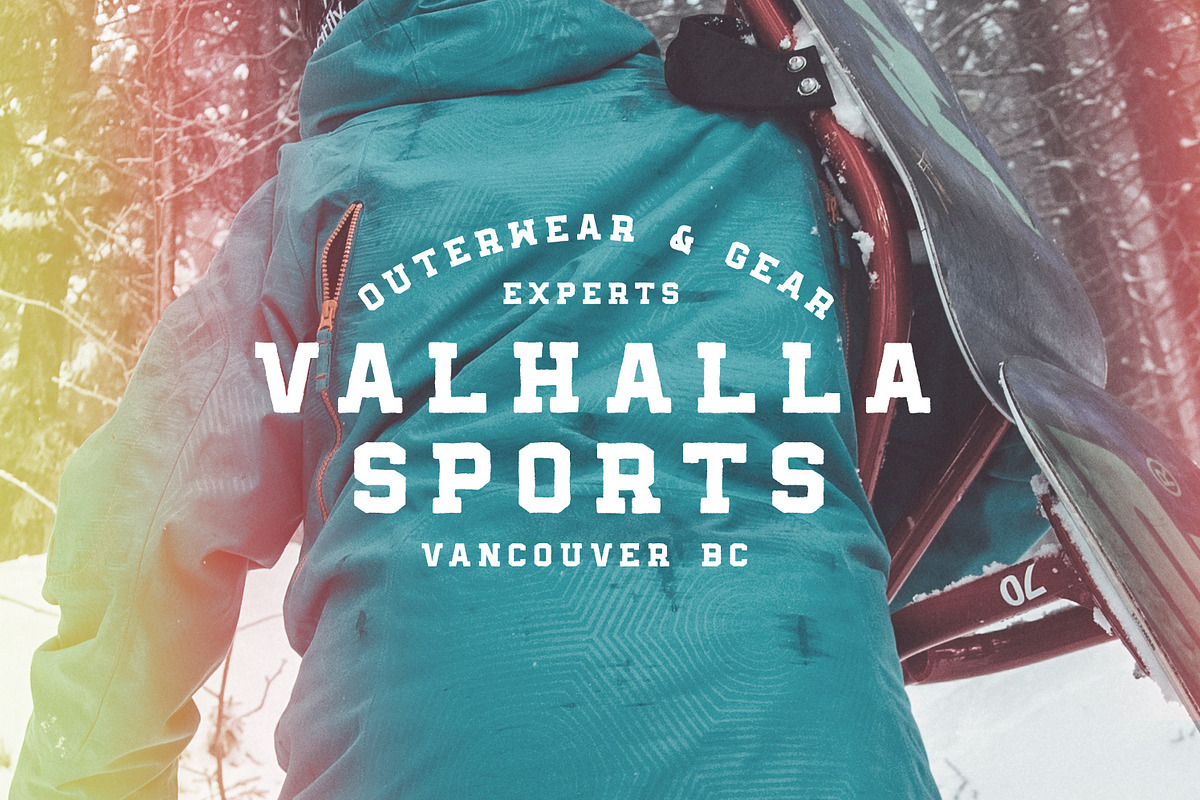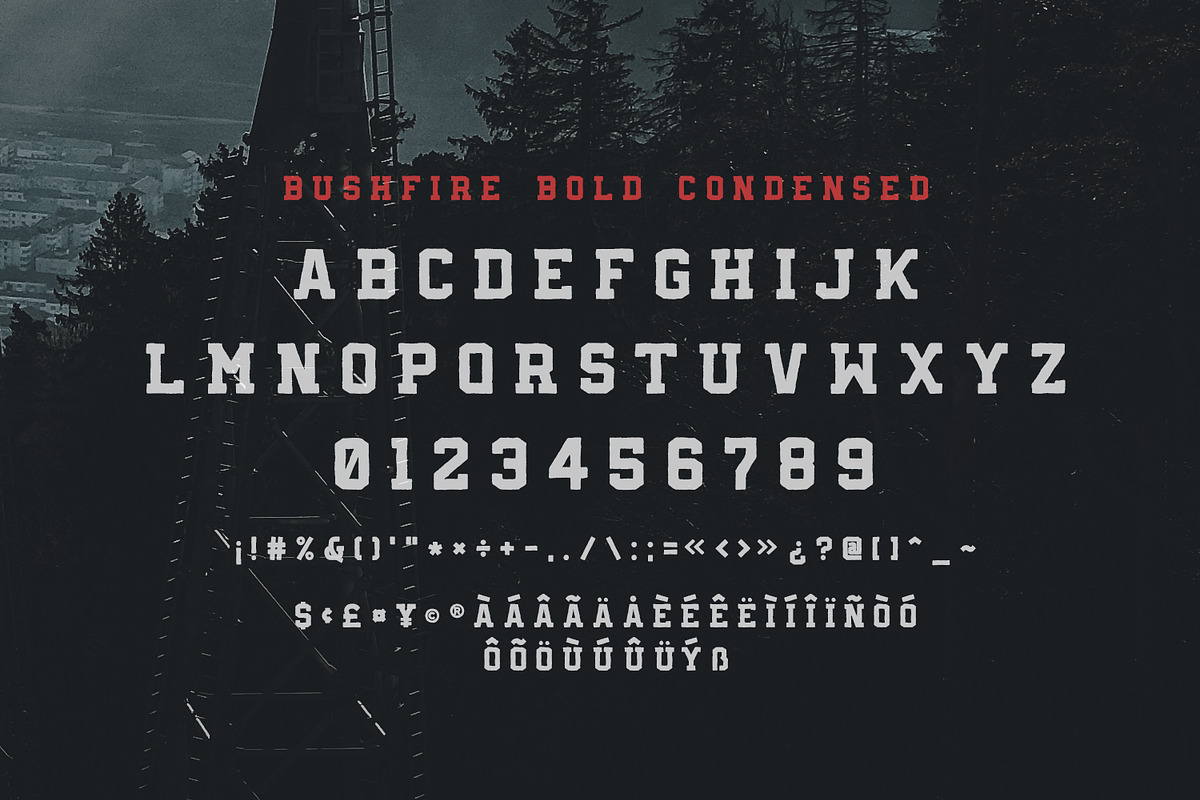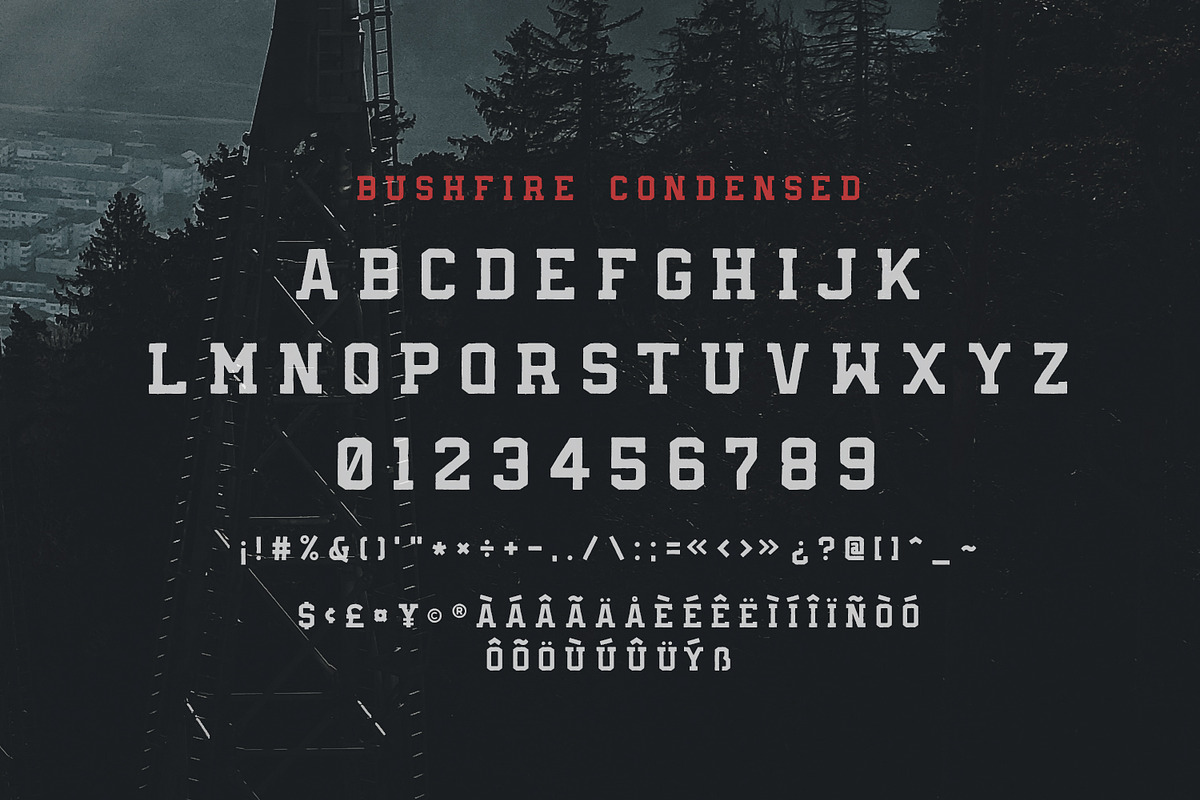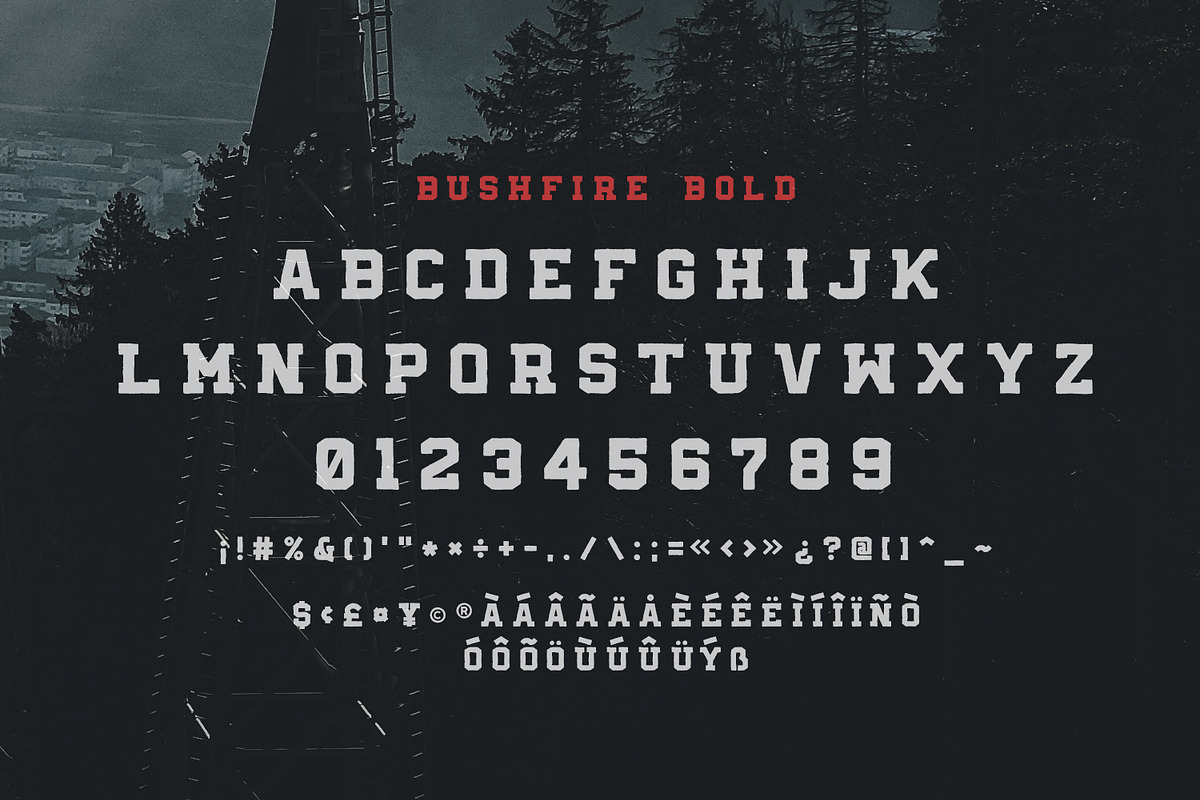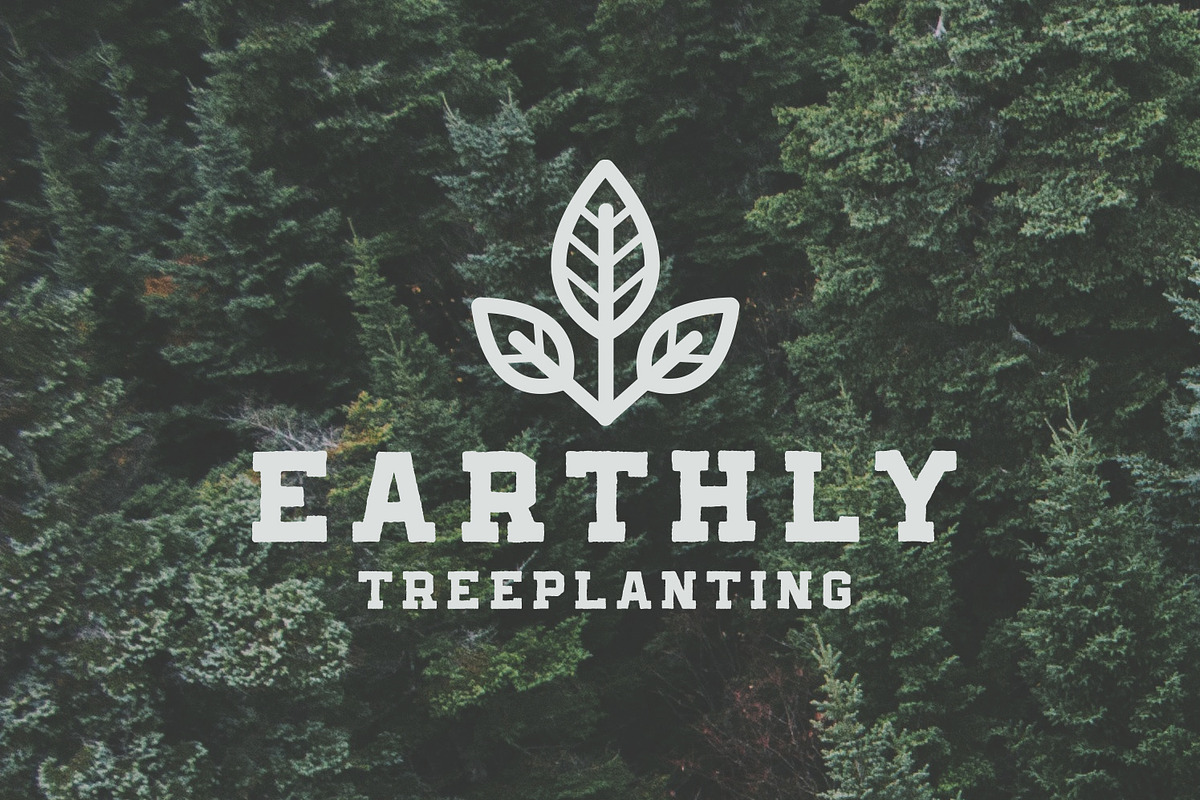
Bushfire - 4 Font Family
Bushfire - 4 Font Family by Greg Nicholls is a font selected for branding, posters, packaging, typography.
- Printing imperfections were added to the characters to give that old school handmade vibe.
Why Bushfire - 4 Font Family is worth a look
Bushfire - 4 Font Family by Greg Nicholls fits naturally into Branding, posters, packaging, typography.